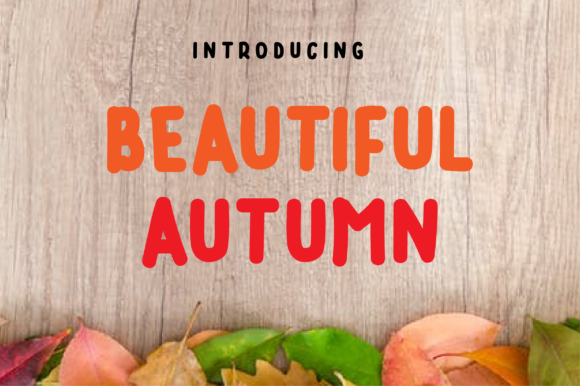
Witness the beauty of the changing leaves and embrace the enchanting aura of autumn with the Beautiful Autumn Font. This remarkable display font, crafted with meticulous care by the talented anasofart, radiates a bold and captivating persona that will leave an indelible mark on your designs. Prepare to be mesmerized by its captivating curves and the distinctive charm it exudes.
With Beautiful Autumn Font, you hold the key to unlocking a world of creative possibilities. Let your imagination run wild and explore the endless opportunities it presents. Whether you're a seasoned typography enthusiast or just starting your design journey, this font is your perfect companion. Its user-friendly nature ensures a smooth and seamless experience, allowing you to effortlessly create stunning visuals that command attention.
Dive into a world where elegance and playfulness intertwine. Beautiful Autumn Font's unique style is guaranteed to make your designs stand out from the crowd. Its bold and invigorating presence is perfect for capturing the dynamic spirit of autumn, evoking feelings of warmth, nostalgia, and a touch of whimsy. Unleash your creativity and witness the transformative power of this font as it elevates your designs to new heights.
As you explore the nuances of Beautiful Autumn Font, you'll discover a treasure trove of captivating letterforms, each meticulously crafted to embody the essence of the autumn season. From the graceful curves of the lowercase letters to the assertive strokes of the uppercase, every character tells a story, inviting you to immerse yourself in the beauty of the changing leaves.
Don't let this opportunity pass you by. Embark on a typographic adventure and let Beautiful Autumn Font ignite your imagination. With its bold and captivating aura, this font will add a touch of magic to your designs, leaving a lasting impression on your audience. Embrace the beauty of autumn and let your creativity flourish with this remarkable display font.